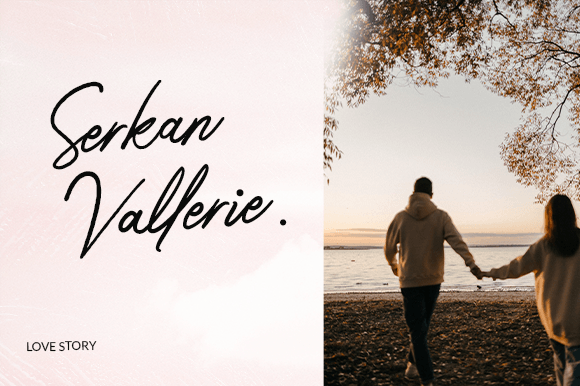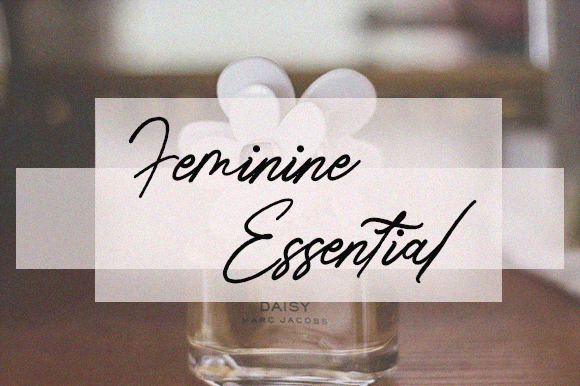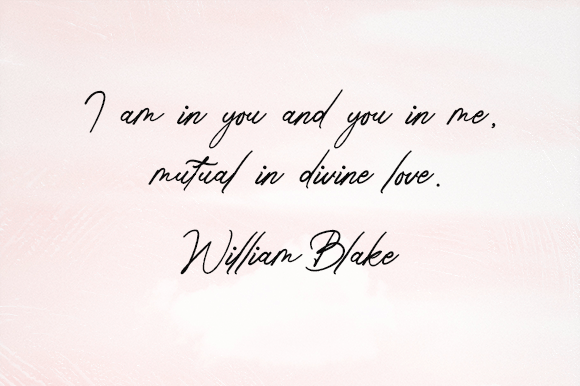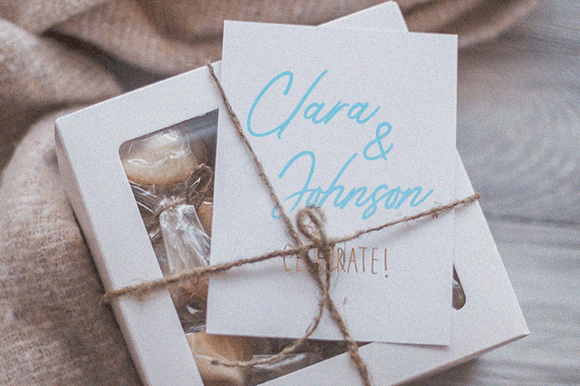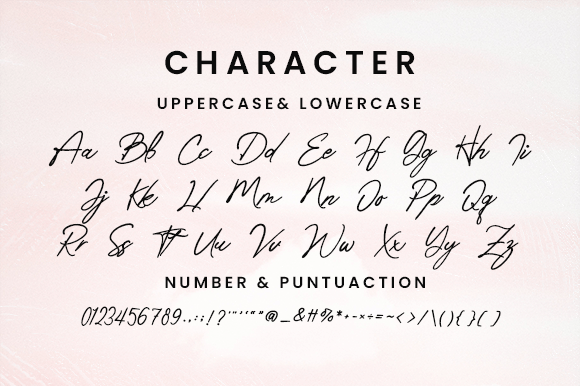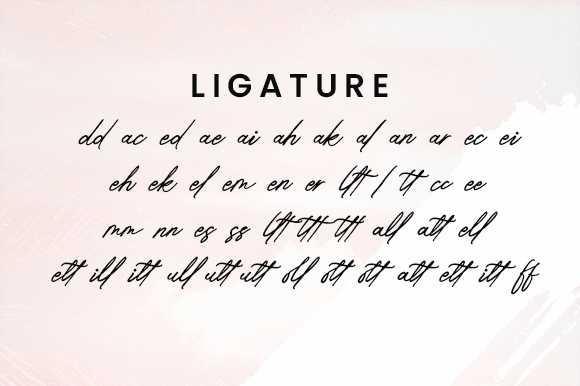
Introduction to Romantic Ending Font
Romantic Eending is a font that gives a romantic and elegant look.
With a fluid and clean style, this font captures the simplicity of every curve and detail The letters have a simple and flowing character, perfect for expressing warmth and tenderness in written communication.
Key Features of Romantic Ending Font
Why Choose Romantic Ending Font?